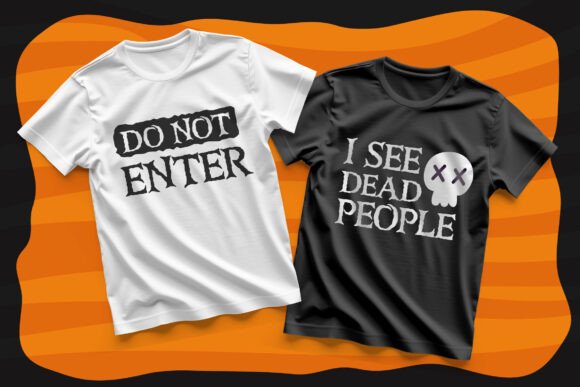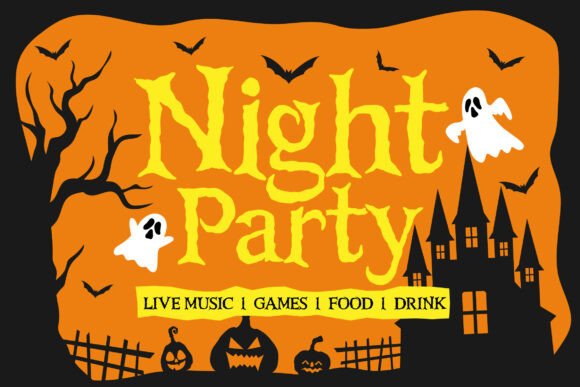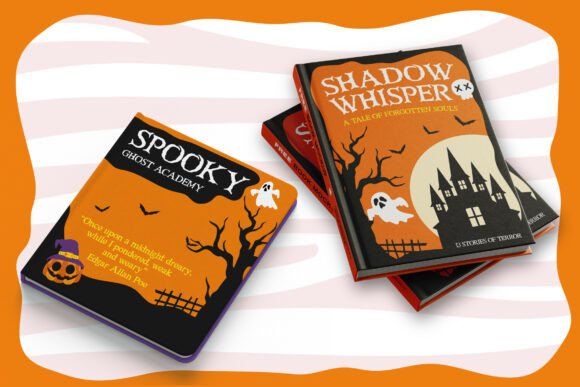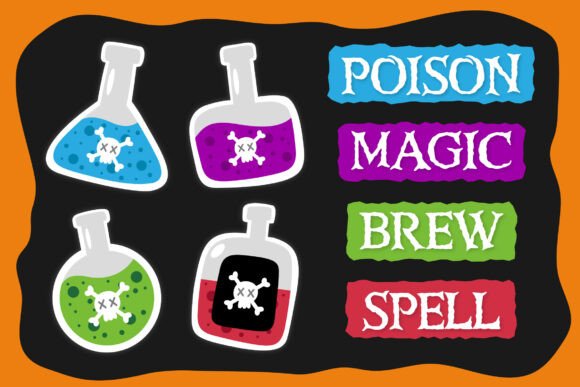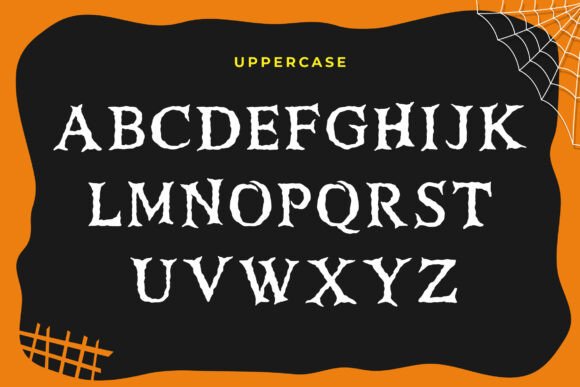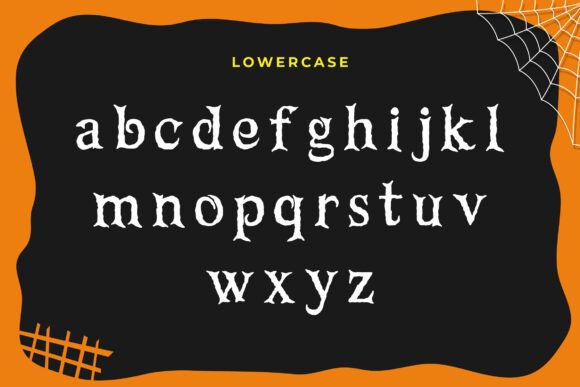
Introduction to Creepy Souls Font
Creepy Souls is a bold, rough, and haunting display font designed to dominate your Halloween season.
With its distressed edges, slightly wobbly letterforms, and genuinely spooky vibe, this typeface is perfect for creating designs that feel vintage yet strikingly macabre Creepy Souls Font is Best Suited For : – Horror Posters and Event Invitations.
Key Features of Creepy Souls Font
Why Choose Creepy Souls Font?